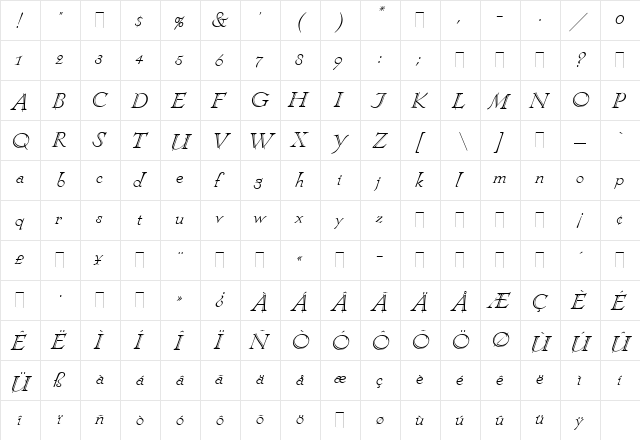
Locarno Italic Regular
Design Context for Locarno Italic Typeface
Locarno Italic is a composed and adaptable typeface that performs quietly and consistently across a wide range of design contexts. The dynamic lean of this cut emphasises speed and emphasis in any layout.
Pro Tip: Use Locarno Italic for emphasis, pull quotes, and subheadings where its slanted energy can add rhythm to the layout.